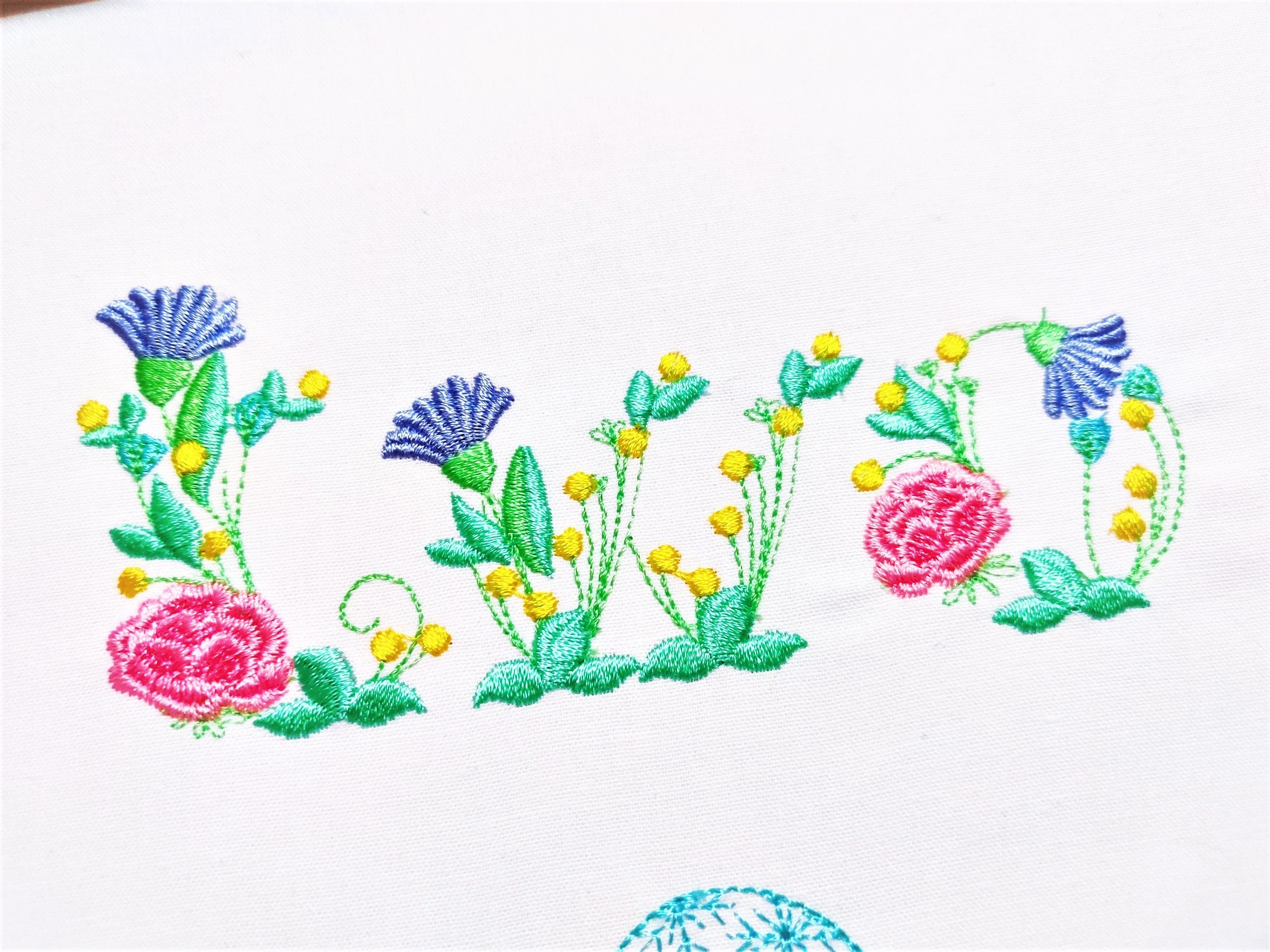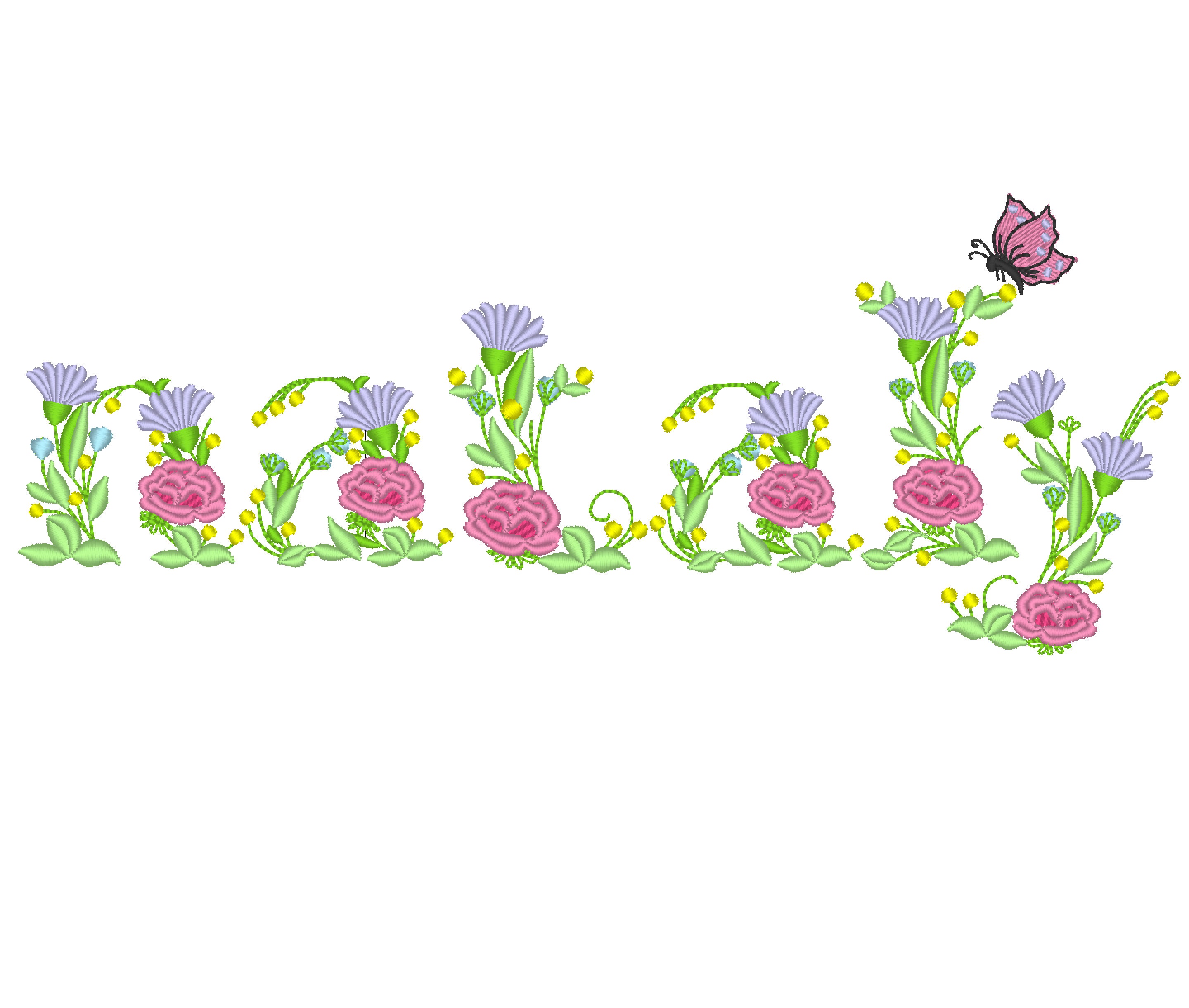
Floral block font lower case letters whole alphabet a-z, monogram flower Floral Font gurly summer name, machine embroidery designs BX included
Lowercase letters a-z